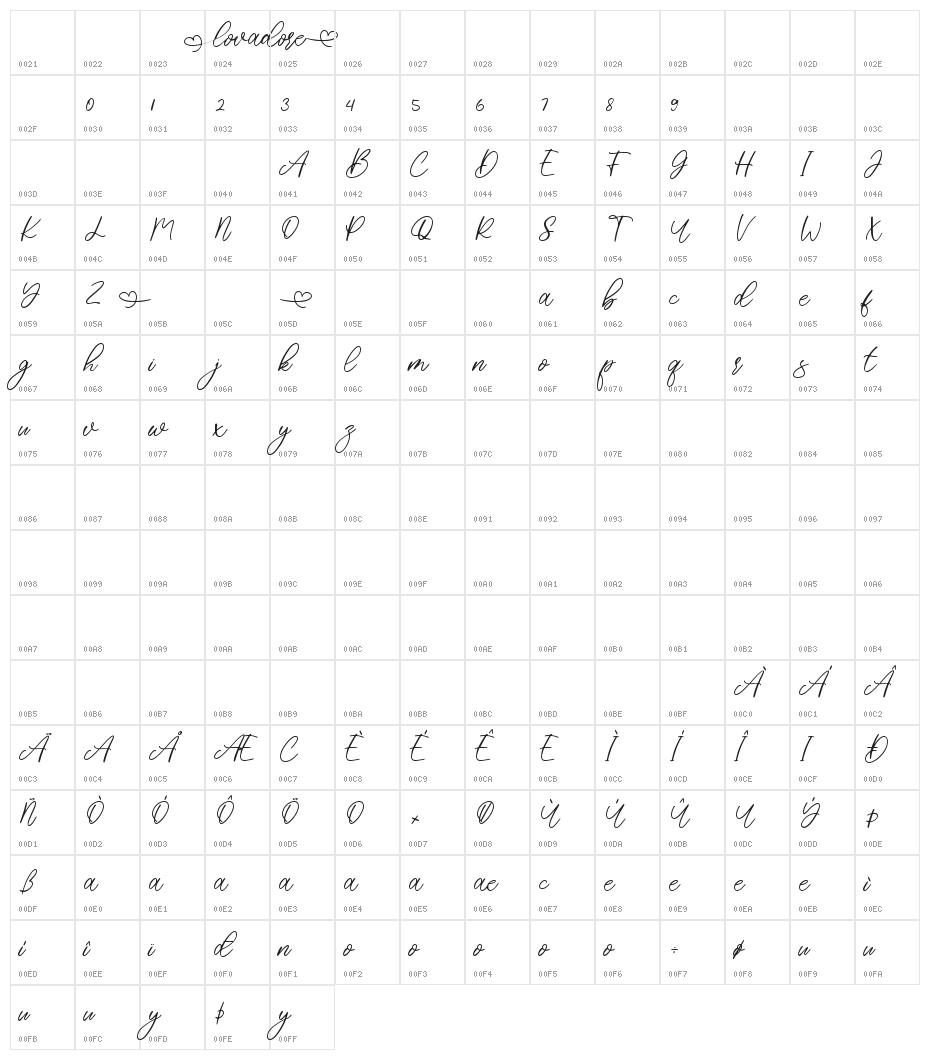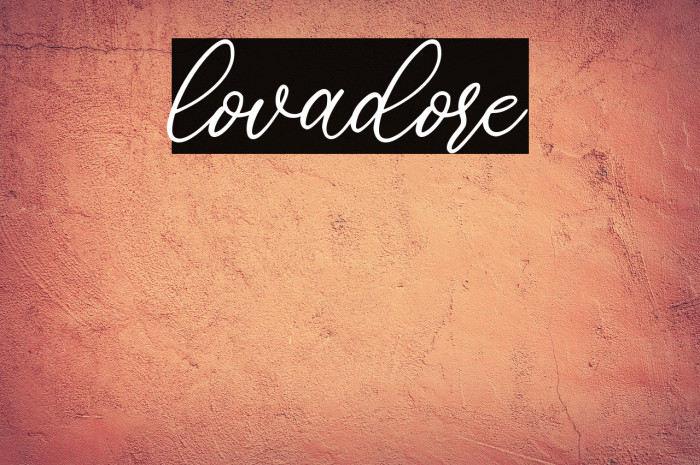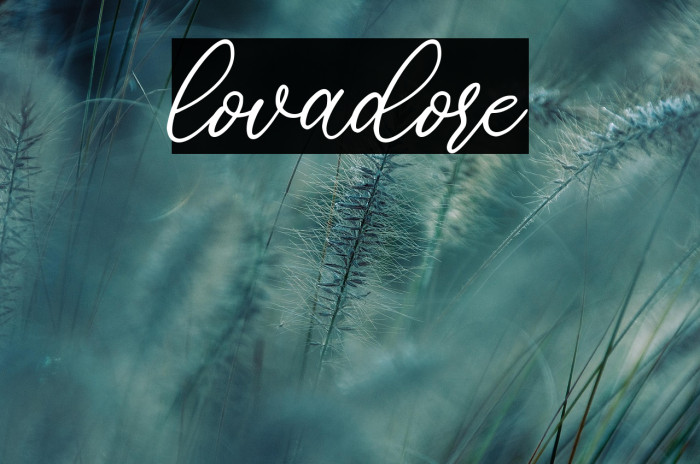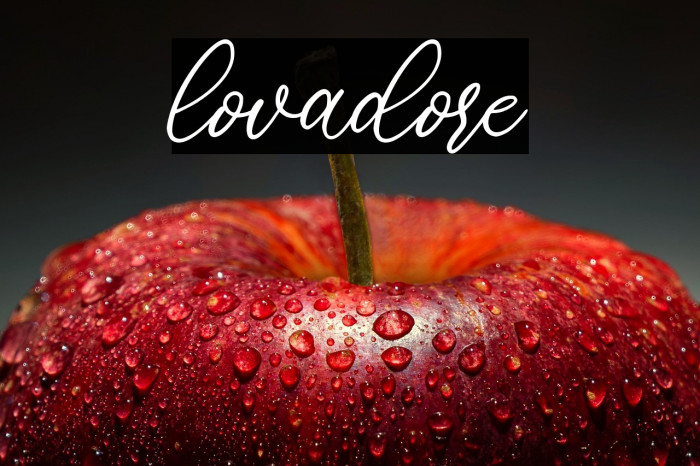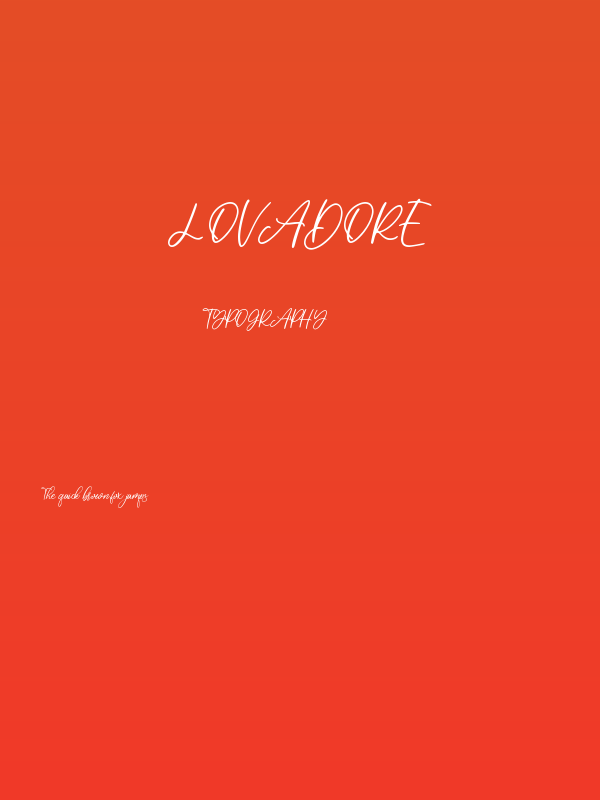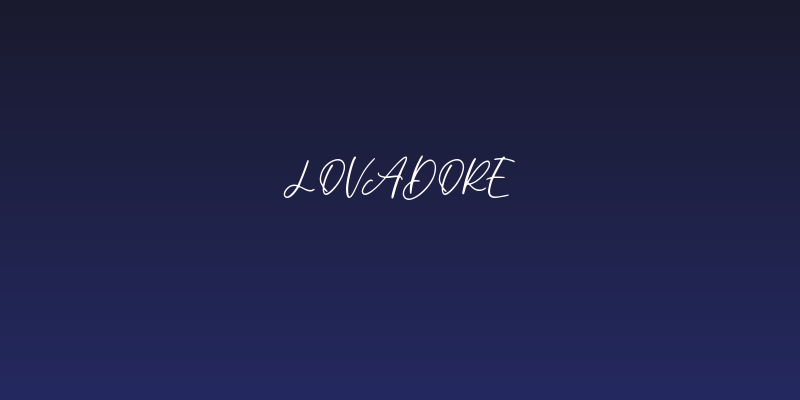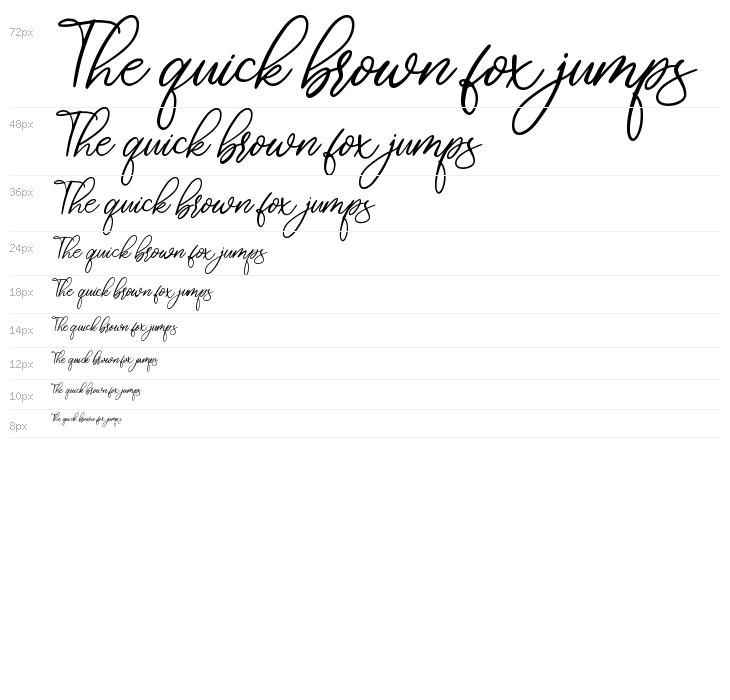
lovadore Font
lovadore Description
This elegant script font features a flowing, cursive style with a modern touch. The letters are interconnected, creating a seamless and fluid appearance. The uppercase letters are slightly more embellished, while the lowercase letters maintain a consistent rhythm and balance. The numerals are clear and easy to read, complementing the overall aesthetic. The font includes special characters, adding versatility for various design needs. Its delicate strokes and graceful curves make it ideal for projects that require a personal and sophisticated touch.